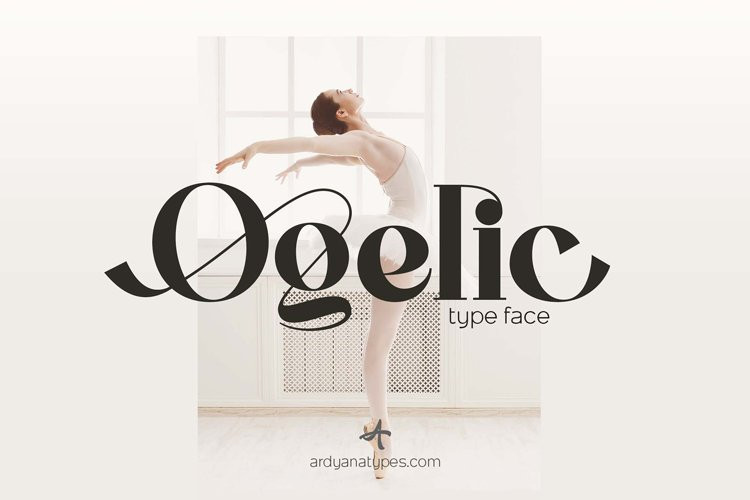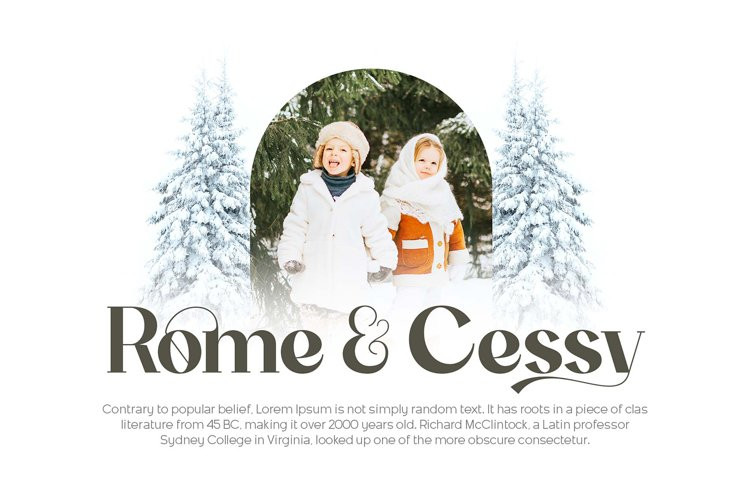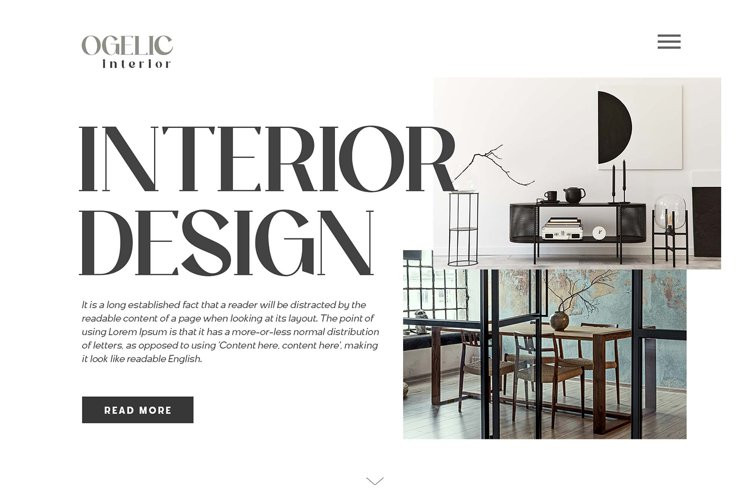
Ogelic Font
Ogelic FontOgelic Typeface Serif is modern and elegant. It pairs well with san serif as pictured or stands firm as a title and brand representative for an elegant look. This Ogelic Typeface is equipped with a modern professional character that can present an elegant and attractive identity for your company for business purposes such as business cards, name tags, and uniforms as a brand enhancement. This modern Ogelic typeface is suitable to be embossed as a letter nameplate or even pasted in your office with a cutting sticker that looks elegant. This elegant Ogelic-type shape is also stunning for book covers or magazine writing. You can see all the available characters in the screenshot above, and you can try the modern & elegant Ogelic now for any design issues. Ogelic also comes with multiple languages, making it easy for any country and language use. It also comes with alternative Ligatures and stylistics to make your designs more attractive.